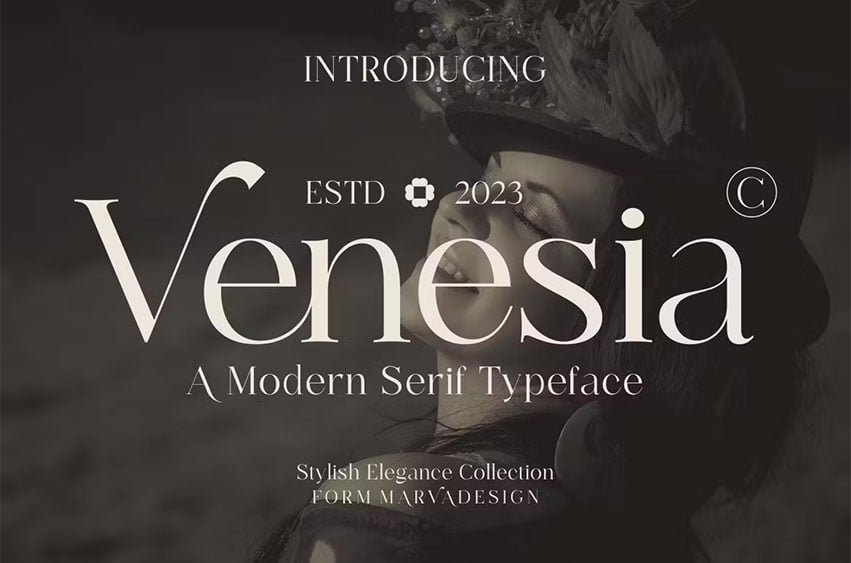
Venesia Font Modern Font is a bold and authentic display font. The font is suitable for any branding project like logo, Template Design, Product and many more. outstanding in a wide range of contexts.